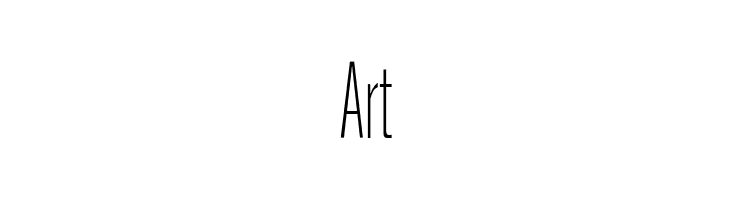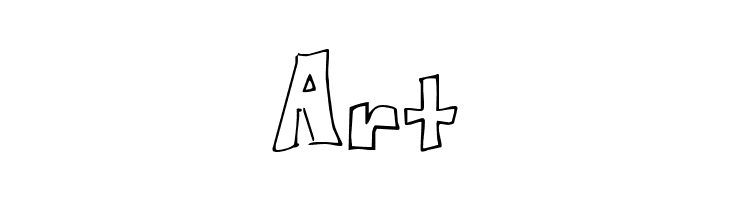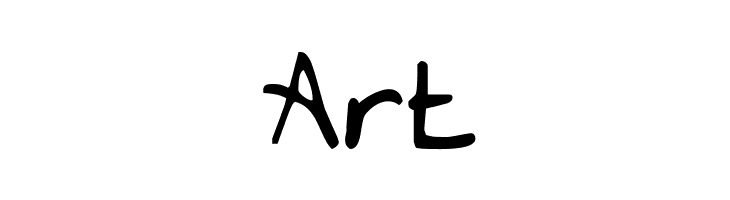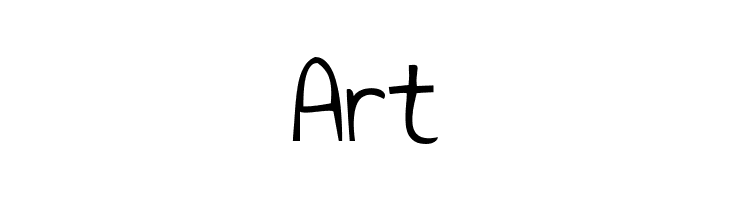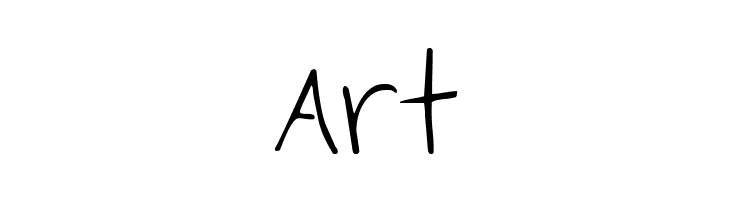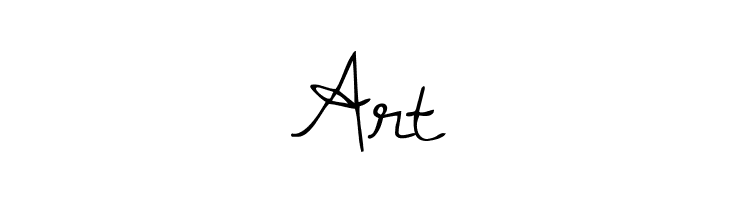
A modern, tall, and narrow sans-serif typeface with clean lines.
A playful, handwritten font with rounded, irregular characters.
A whimsical, handwritten font with playful curls and loops.
A playful, hand-drawn font with bold, irregular strokes.
A playful handwritten font with a casual, dynamic style.
A playful cursive font with fluid strokes and a whimsical, handwritten style.
A distressed, hand-drawn font with a grunge aesthetic.
A playful, handwritten font with bold, rounded strokes and a whimsical style.
A whimsical and flowing script font with elegant, fluid strokes.